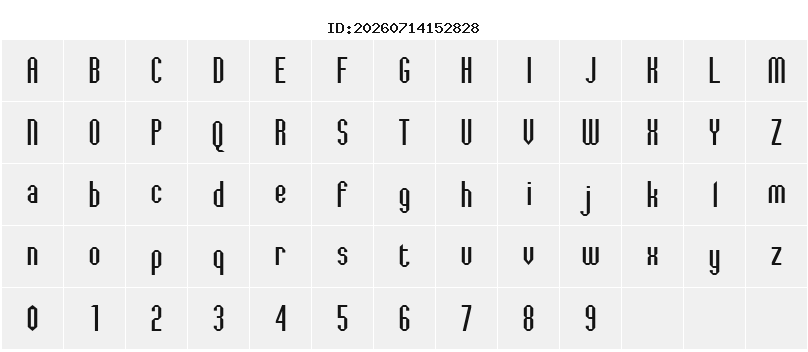
• Font Name: Jagged Dreams
• Full Font Name: Jagged Dreams
Jagged Dreams.ttf is a modern, elegant sans-serif font designed for ultimate readability and visual harmony. Perfect for branding, headlines, web design, and print materials.